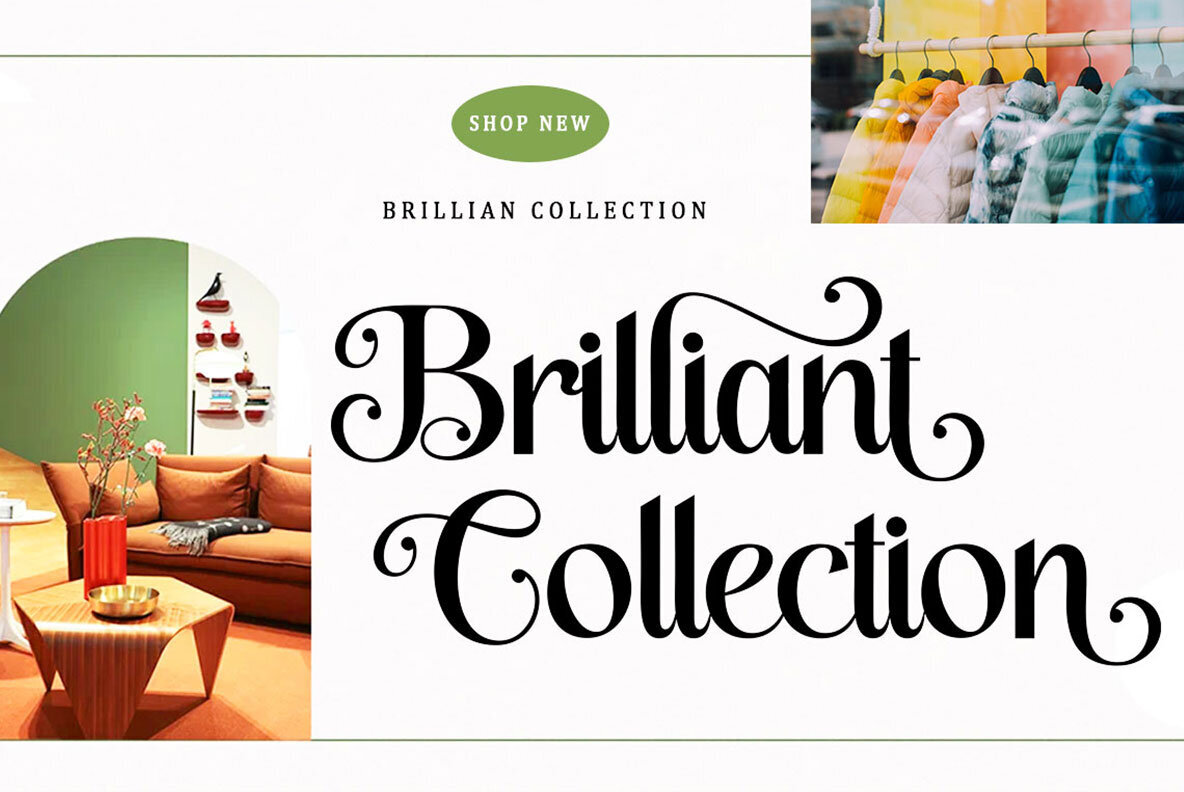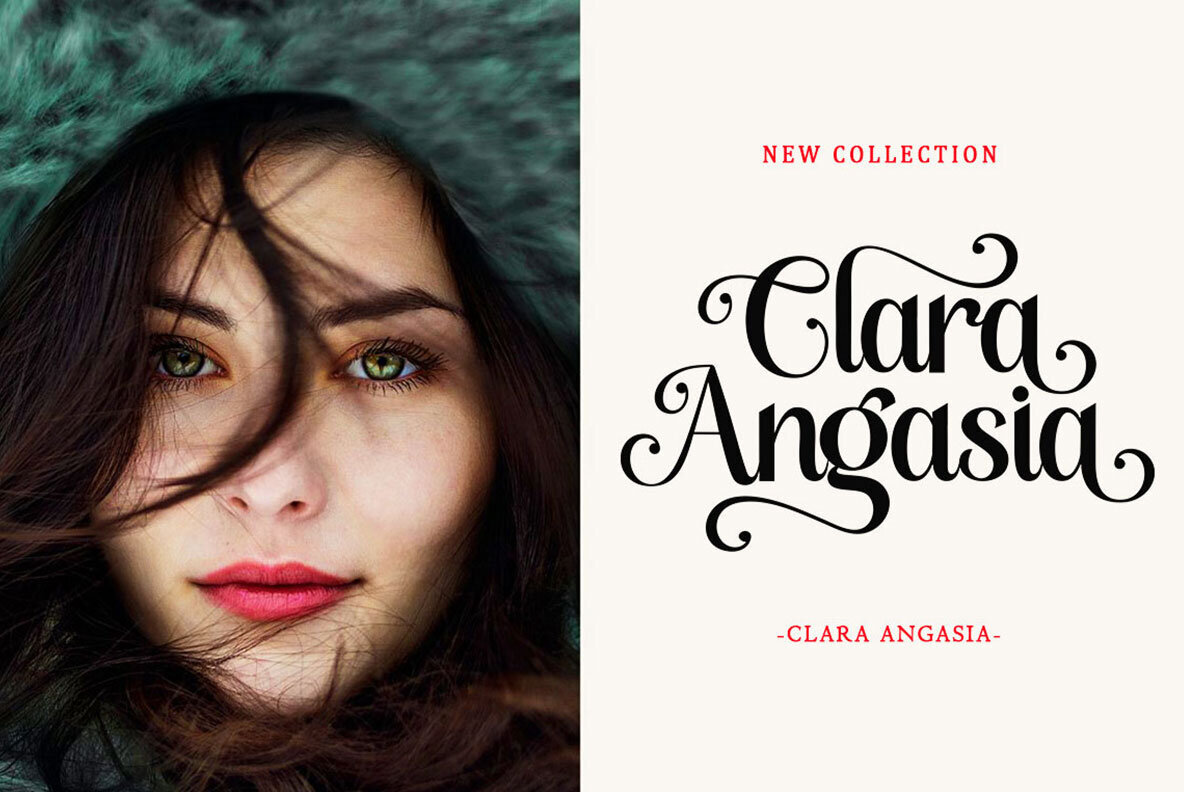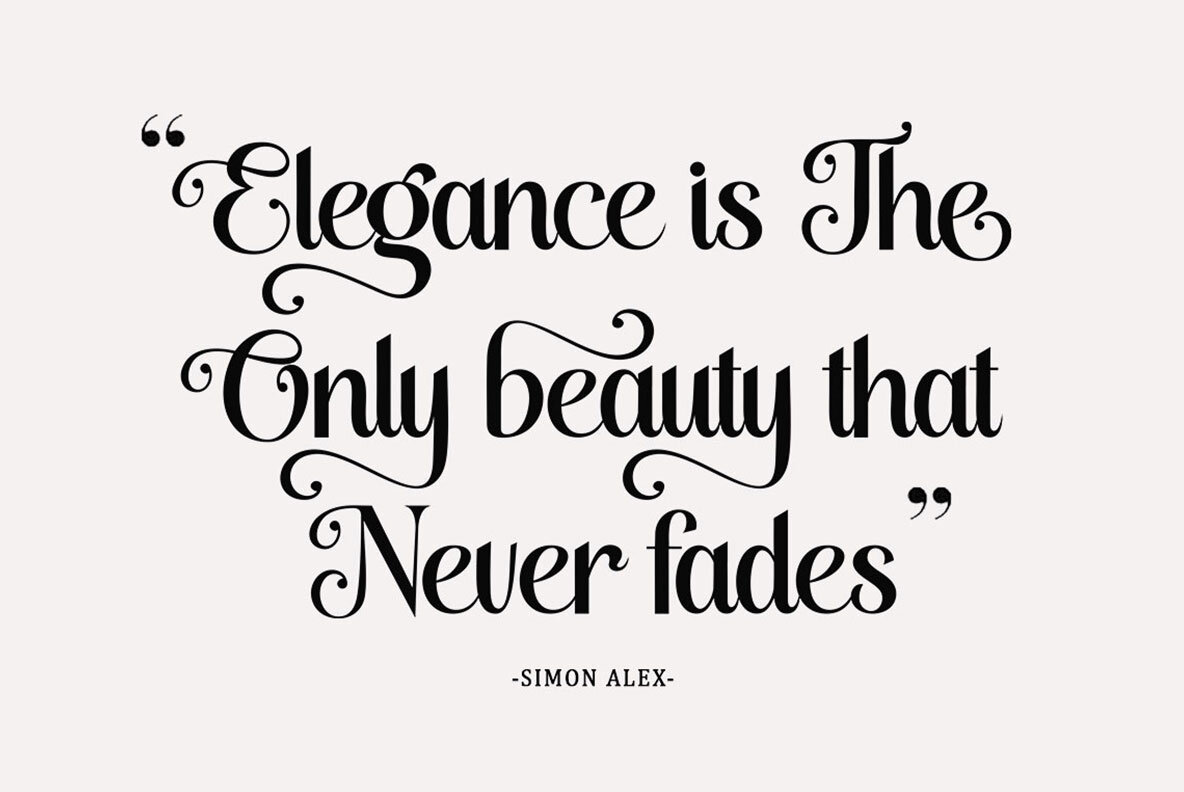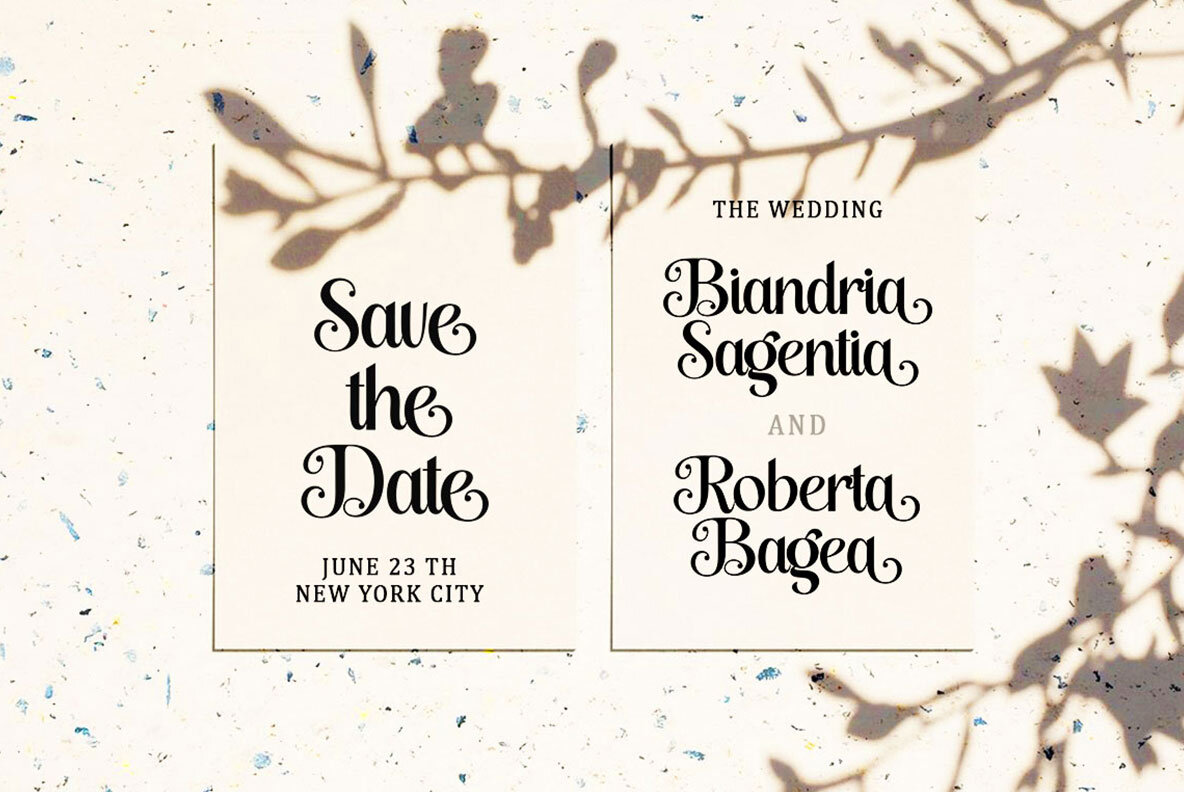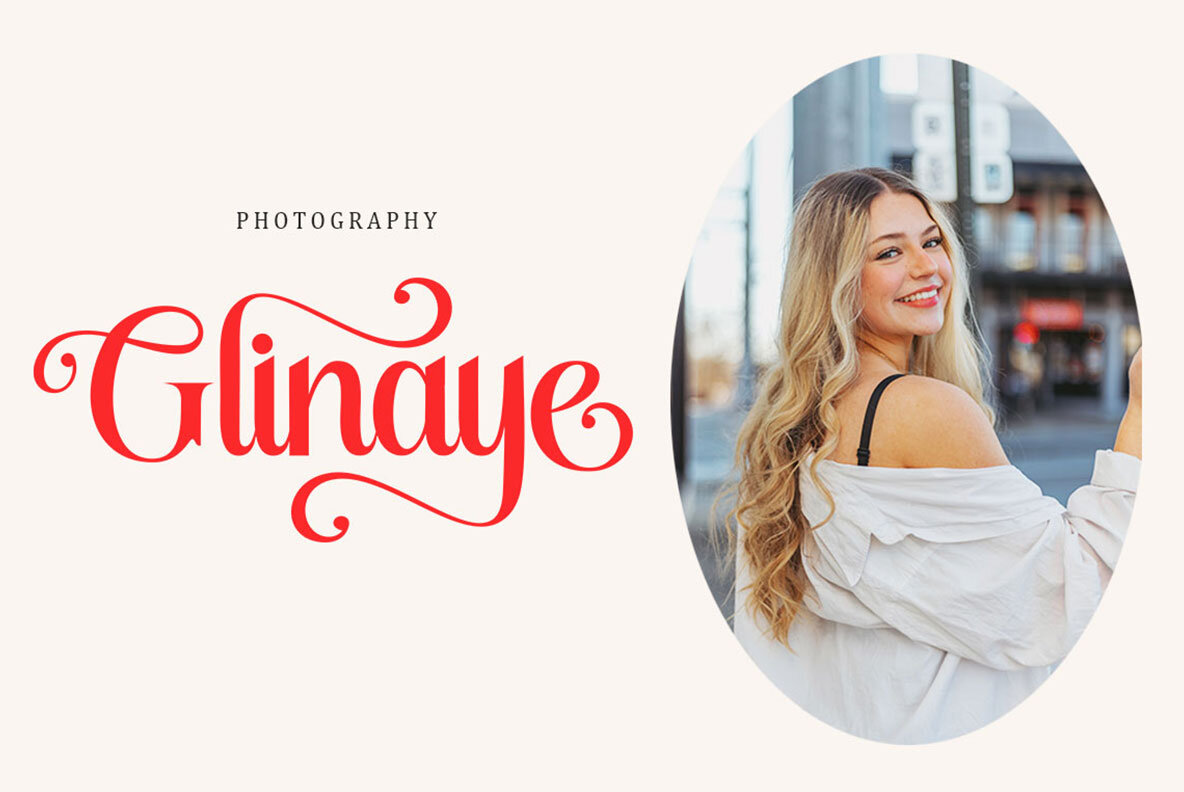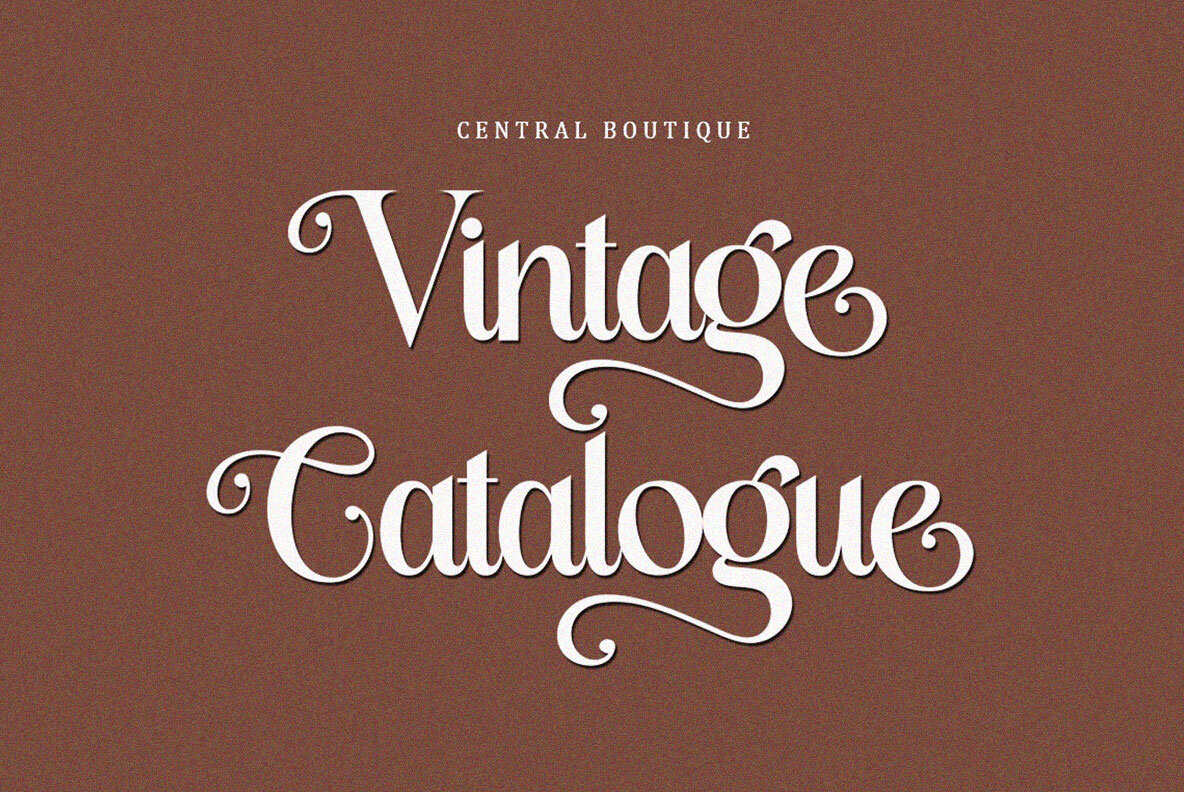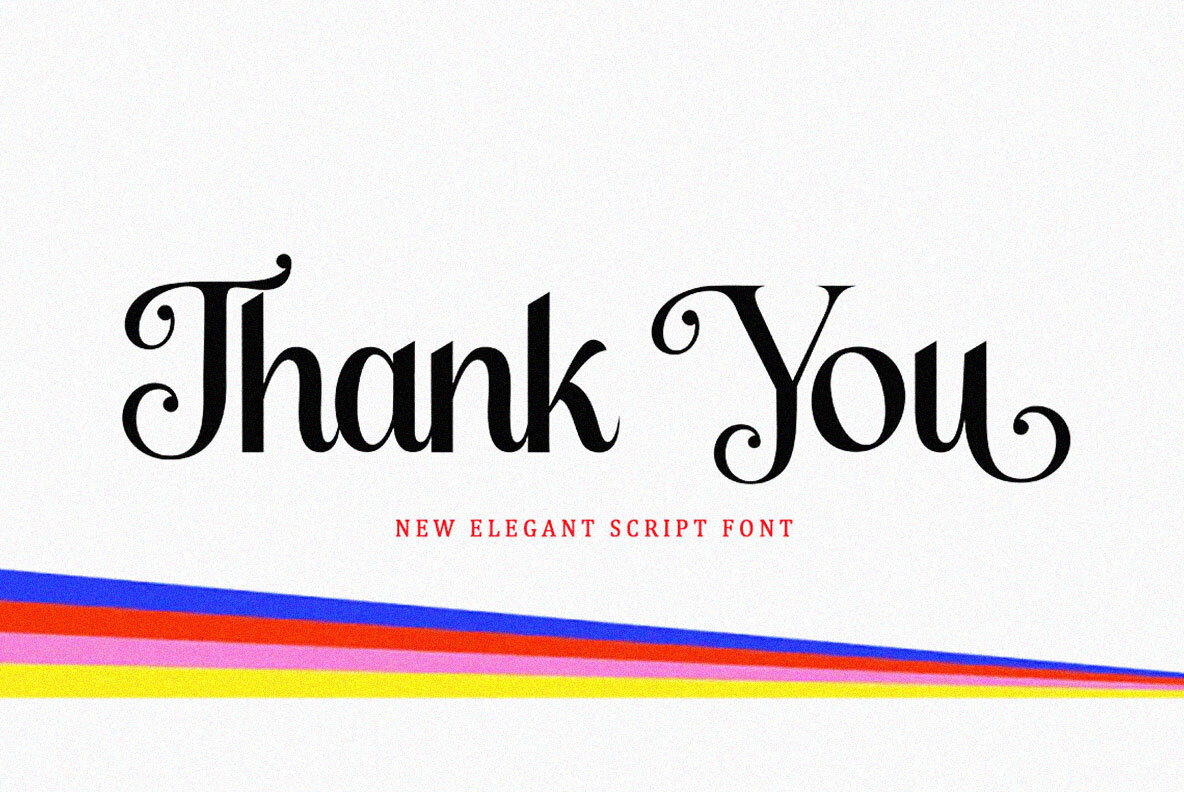
The Malgena Font
The Malgena Regular
TheMalgena is a modern script font that exudes a classic and elegant touch. It stands out due to its sleek, clean, feminine, and glamorous design, making it easy to read. The font features beautiful letter joints and offers a variety of stylistic alternatives for certain letters. The classic style of TheMalgena is perfectly suited for various formal applications such as: If you need assistance or have any questions, feel free to reach out. Thank you and congratulations on your design!TheMalgena: A Modern Script with Classic Elegance